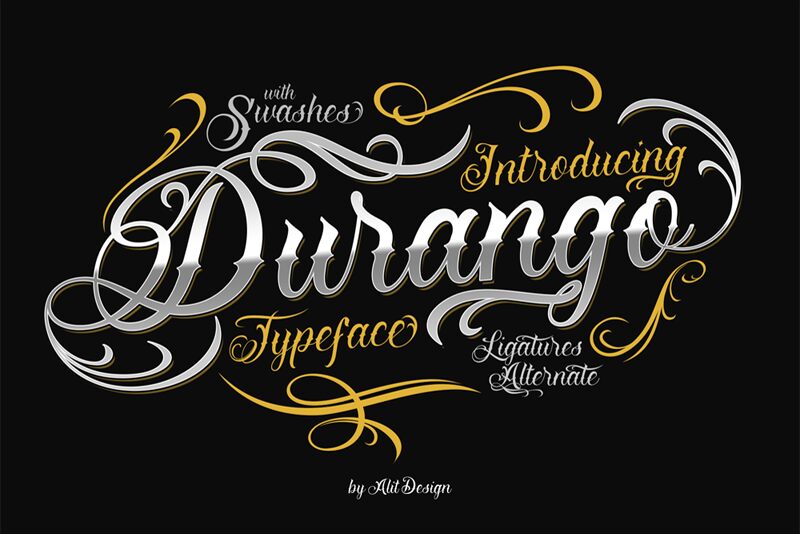
Durango, the semi-light tattoo calligraphy font, designed by Alit Design is a perfect fit for projects that are daring and bold. With its intricate curves and bold strokes, the Durango font is ideal for tattoo designs, rock band logos, motorcycle graphics, and even restaurant menus. This edgy font style will add an element of rebelliousness to your designs that will surely catch the attention of your audience. Whether you're designing a greeting card or a promotional poster for an upcoming event, Durango's unique style will give your project an edge that's hard to ignore. Try it out today and see how it can transform your work!
Durango